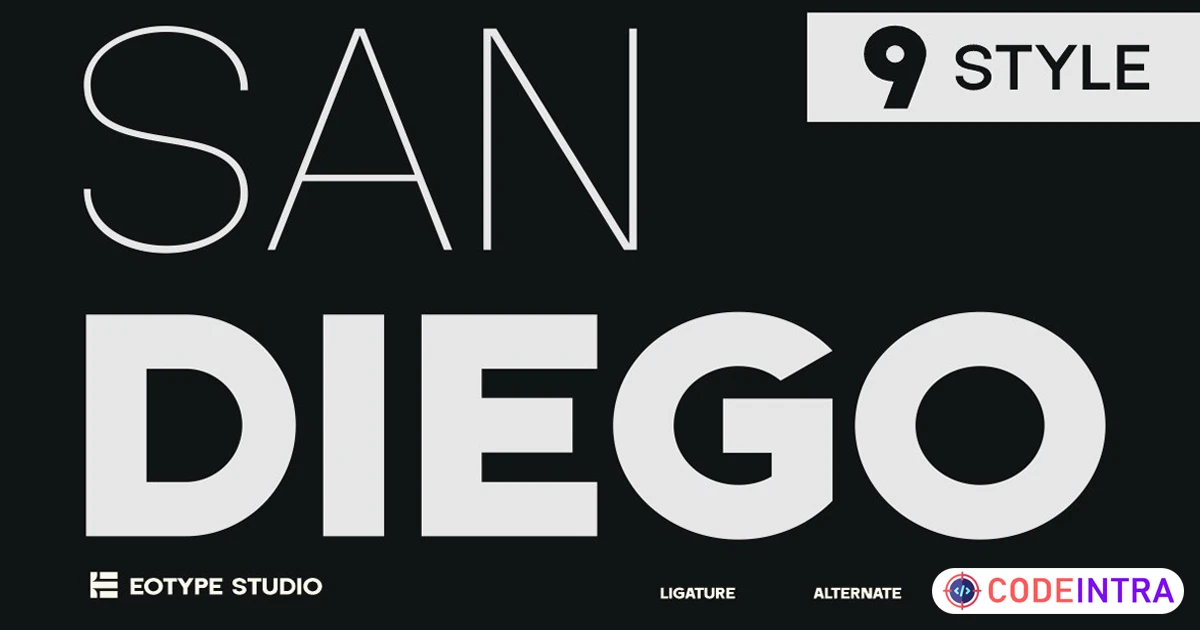
San Diego is a fresh, modern sans serif font from Eotype Studio, designed with a distinctive geometric aesthetic outline. This versatile font family offers 9 unique styles, making it an excellent choice for a wide array of design projects.
Key Features:
• 9 Styles: A diverse range to suit various design needs.
• Geometric Aesthetic: Clean and modern glyph shapes.
• Alternates & Ligatures: Enhance design flexibility and visual appeal.
• Multiple Language Support: Broad usability for global projects.
• Standard Glyphs, Numerals & Punctuation: Comprehensive character set.
Ideal For:
San Diego is perfect for creating impactful logos, strong branding, eye-catching posters, and many other design applications where a clean, contemporary feel is desired.!